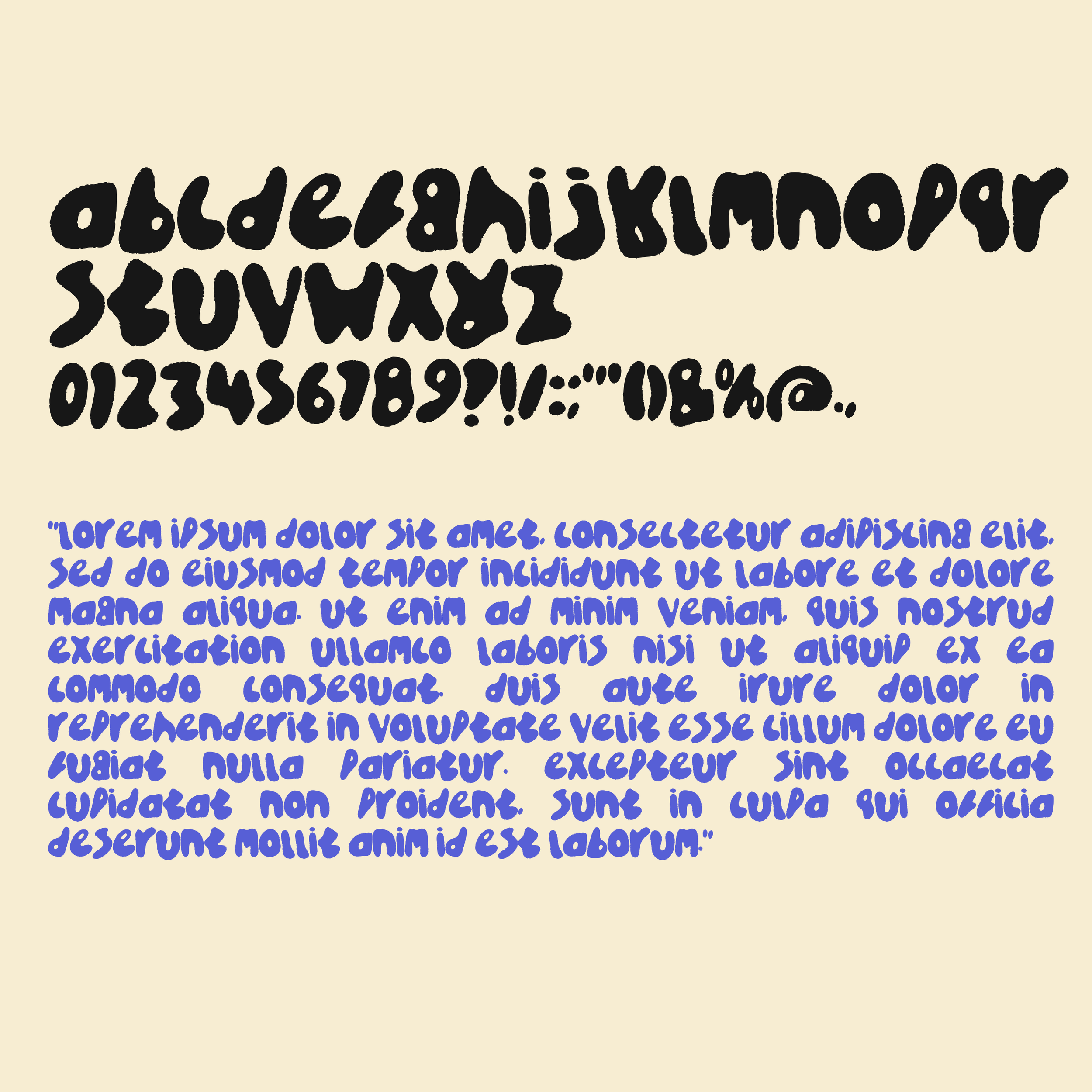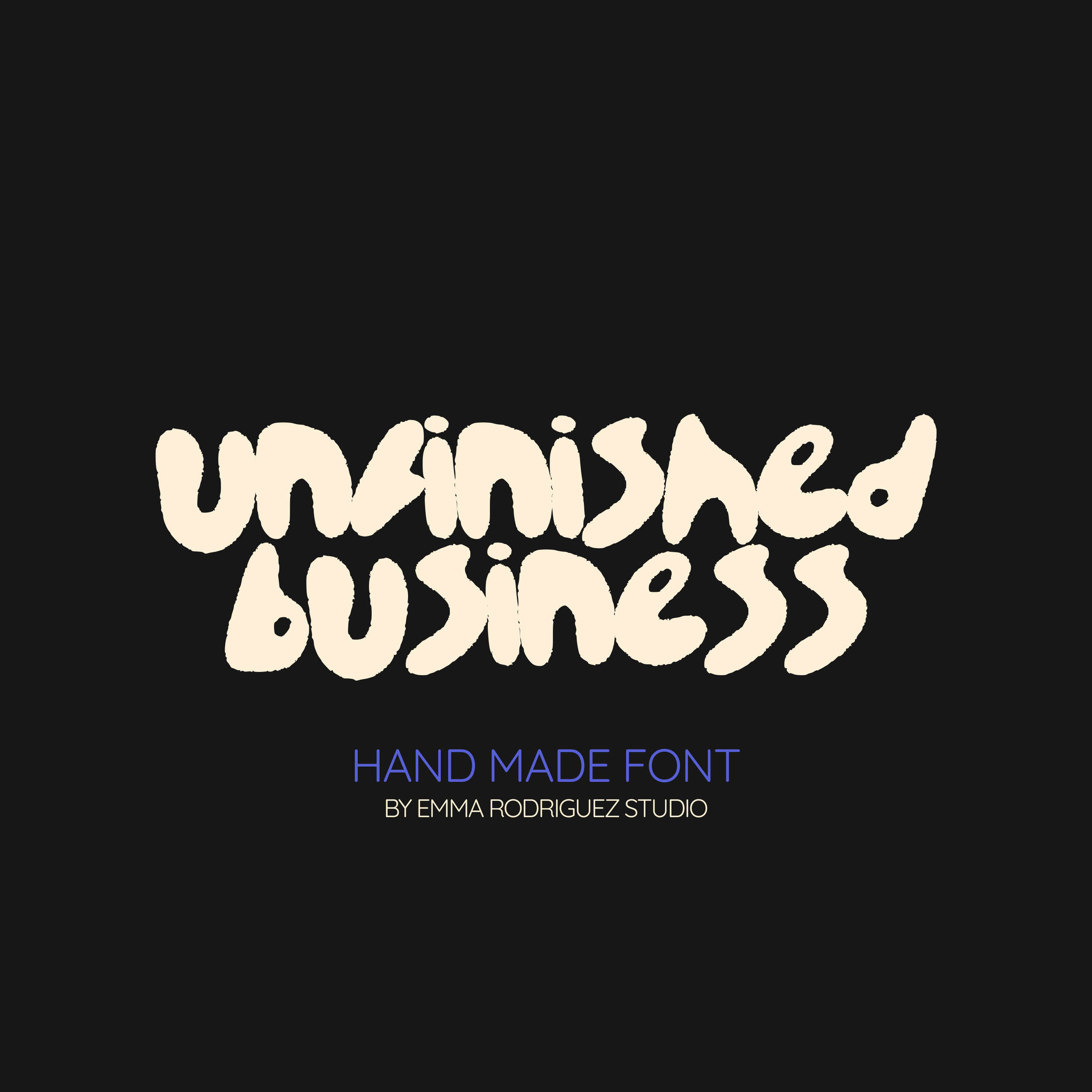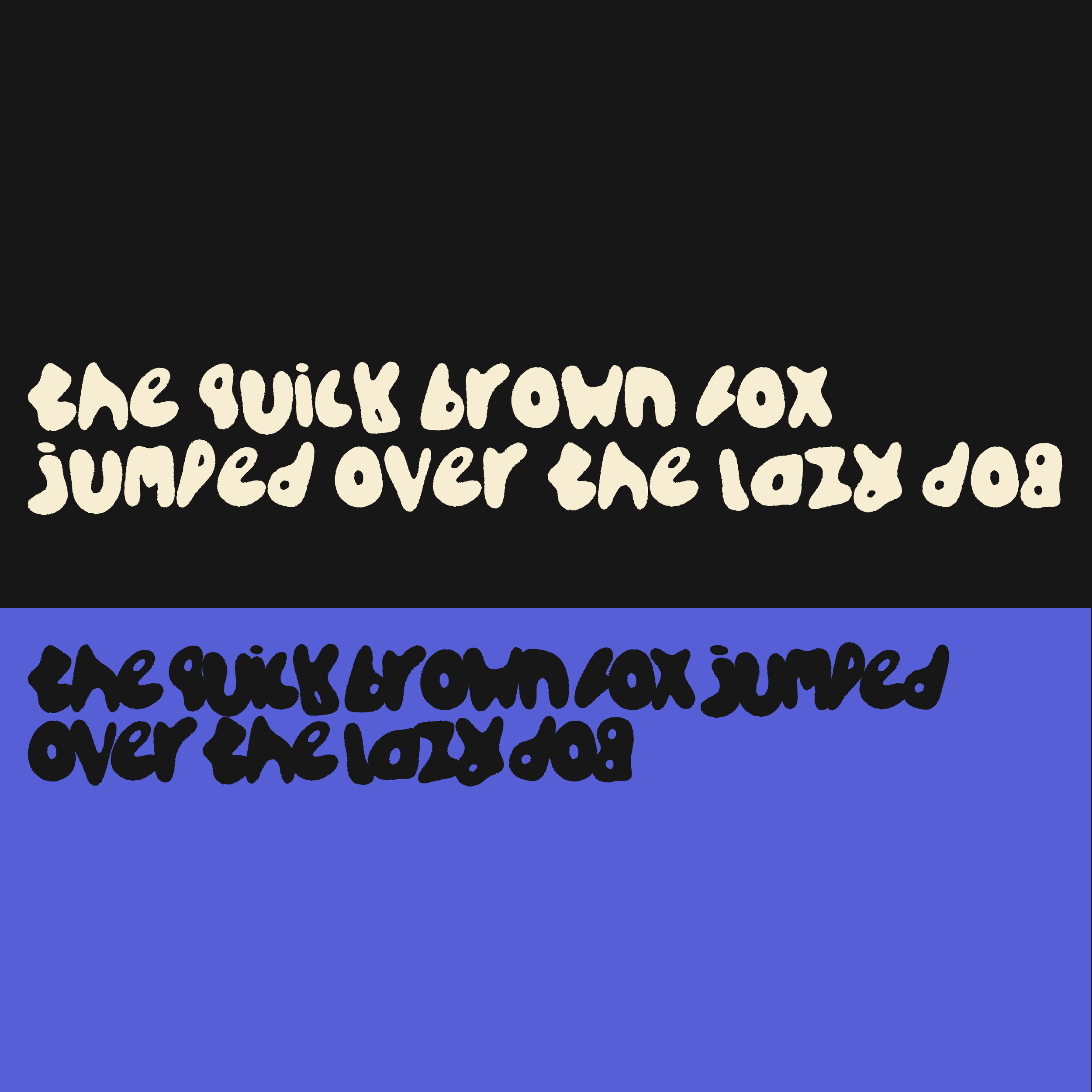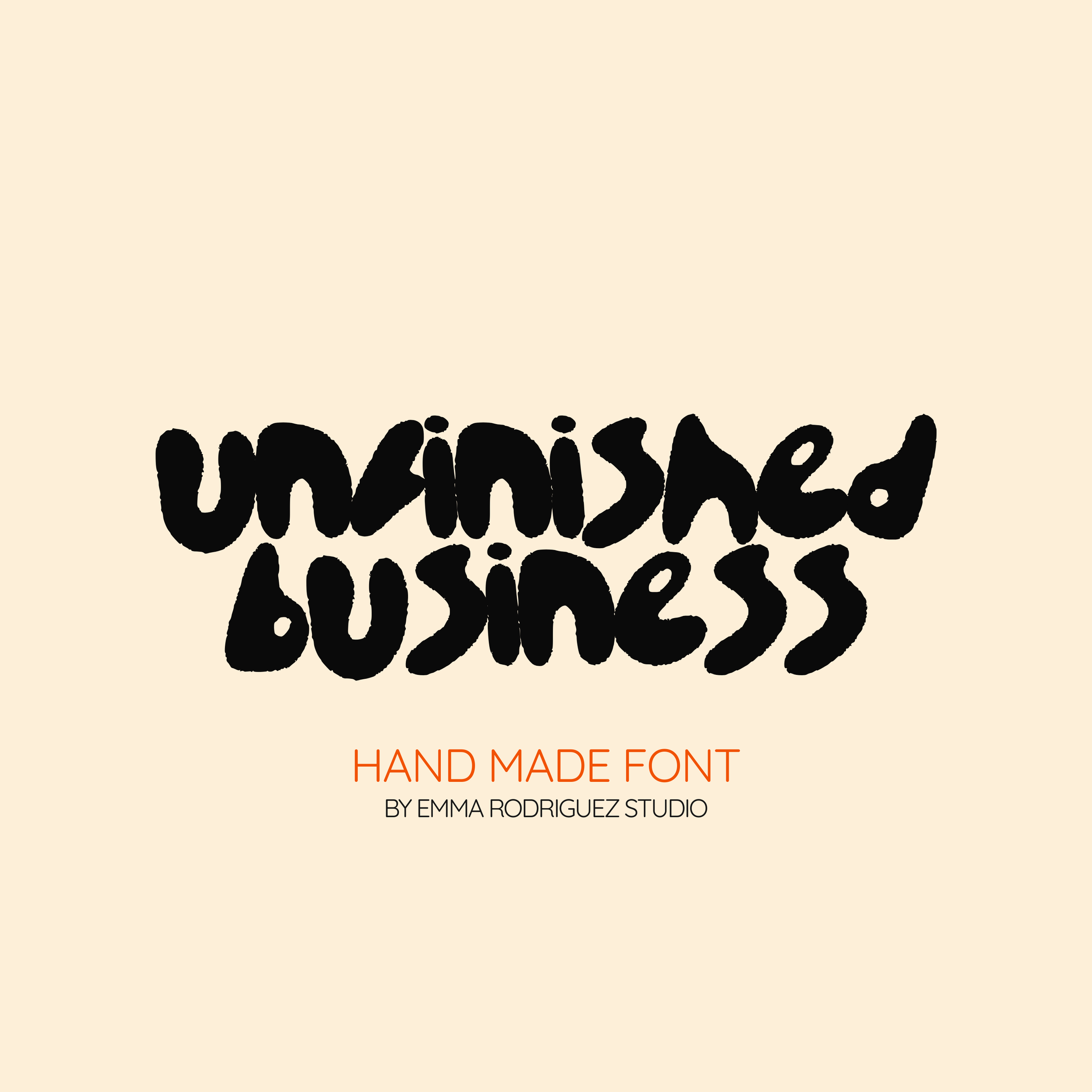
Unfinished Business Font - Thick Bold Fun Bubbly Type
Meet Unfinished Business, a bold hand drawn font that looks like it was written quickly and never quite cleaned up. Thick strokes, rough edges, and uneven shapes give it a raw, expressive character that feels playful, messy, and full of attitude.
Every letter has a slightly imperfect, organic feel, like ink that has been pushed around on the page without worrying too much about staying inside the lines. The result is a chunky, energetic typeface that feels spontaneous and full of personality.
This is the kind of font you use when polished and perfect just is not the point.
Perfect for projects that need a fun, expressive voice and a handmade feel that stands out instantly.
• All lowercase letters
• Numbers and basic punctuation
Use it for:
• Bold branding
• Poster headlines
• Album artwork
• Statement packaging
• Stickers
• Social media graphics
• Zines and indie publications
• Fun merchandise